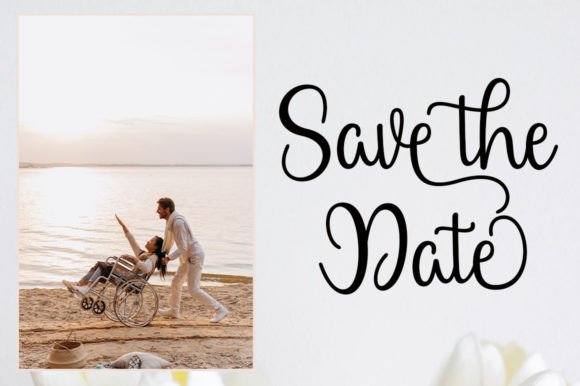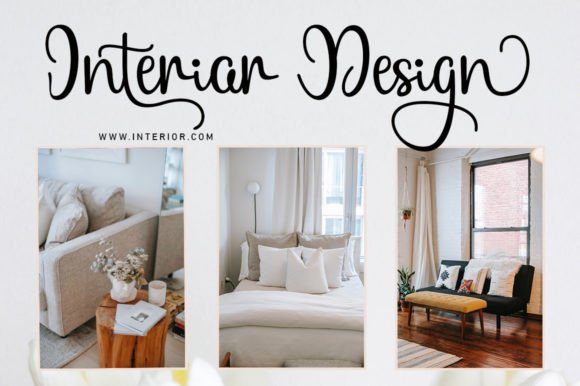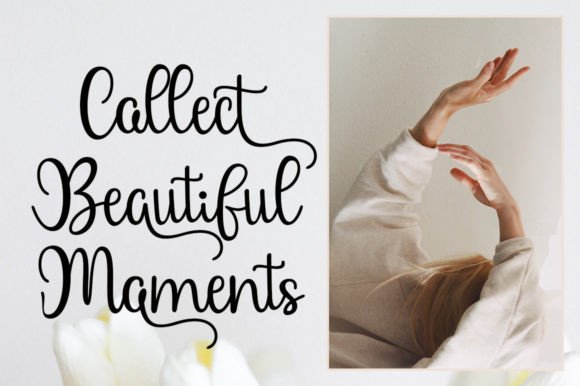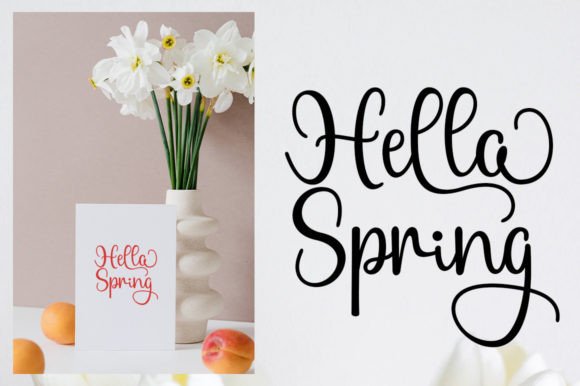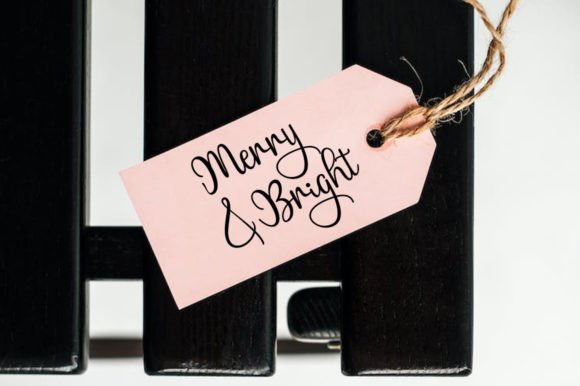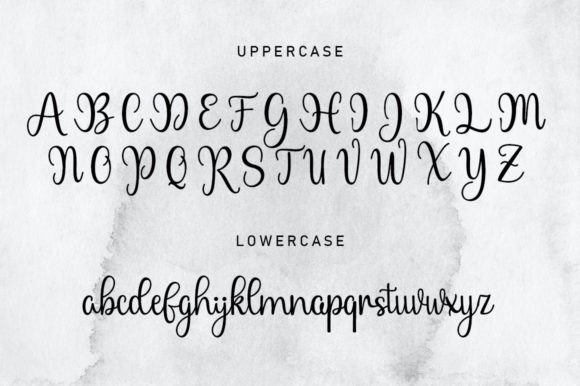
Introduction to Mastera Font Font
Fonts play a crucial role in design, and the Mastera Font font is a typeface that brings both character and versatility to any project. Whether you’re working on a branding project, a website, or a print design, the Mastera Font font offers a unique style that can elevate your work.
Mastera is a romantic and sweet calligraphy typeface with characters that dance along the baseline.
It has a casual, yet elegant touch This font is PUA encoded which means you can access all of the glyphs and swashes with ease.
The Mastera Font font is more than just a typeface – it’s a design tool that helps you communicate your message with style and clarity. Its unique character set and versatile design make it suitable for a wide range of applications, from elegant invitations to bold headlines.
With its carefully crafted letterforms and balanced proportions, the Mastera Font font ensures readability and visual appeal across all mediums.
The Mastera Font font stands out with its unique design, exceptional readability, and versatility across various design applications.